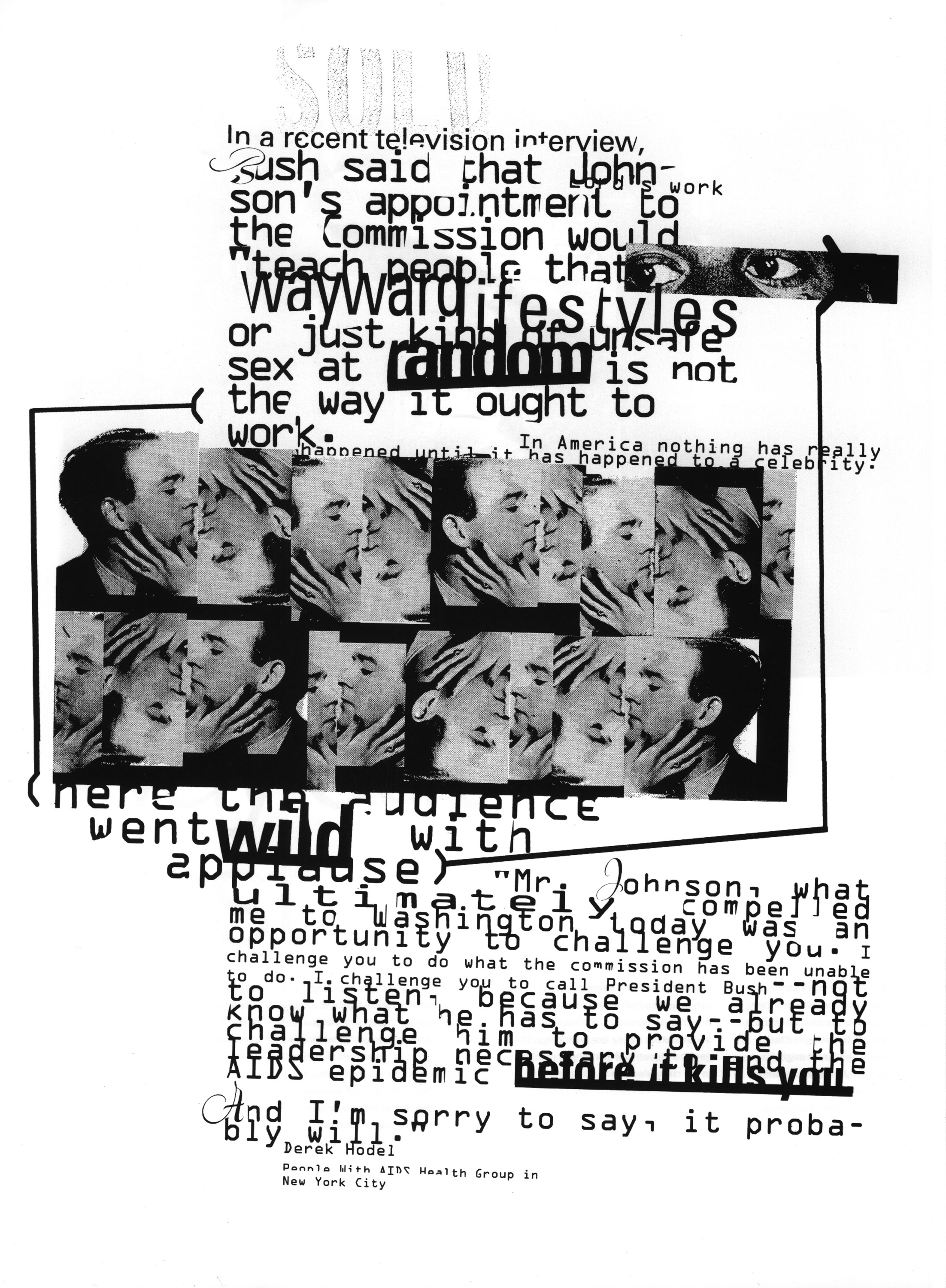
1992
Martin Venezky
George Bush/Magic Johnson
laser printing and collage 11 × 17 inch Bloomfield Hills, MI
Venezky created this piece at Cranbrook Academy of Art. It was reproduced on the cover and interior of Eye, No. 10, Vol. 3, where the caption reads, “Venezky used the computer to generate raw type, then manipulated it by hand with a freedom he was unable to achieve on screen.”
Eye, No. 10, Vol. 3, 1993